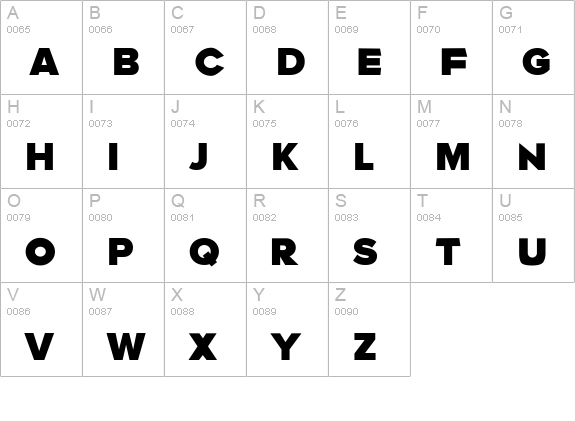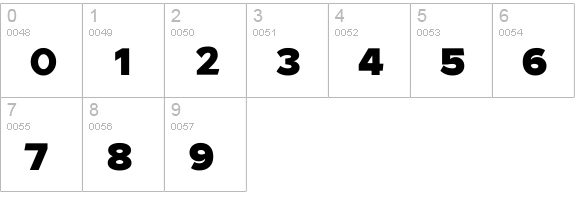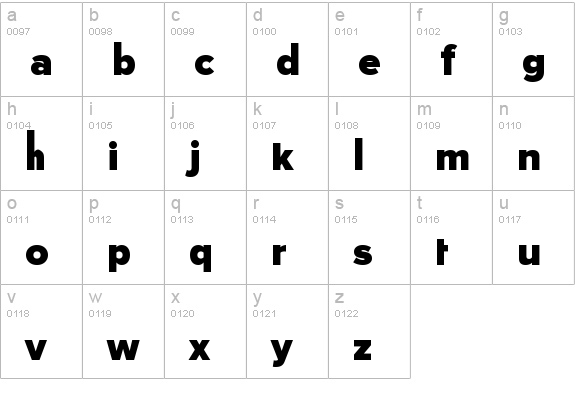
The Tcf 1981 Supermax124 font is a bold and eye-catching typeface that exudes a sense of strength and modernity. Its sharp edges and geometric shapes give it a futuristic and dynamic look, making it perfect for headers, titles, and branding projects. This versatile font is designed to make a statement and leave a lasting impression on any design it is used in.